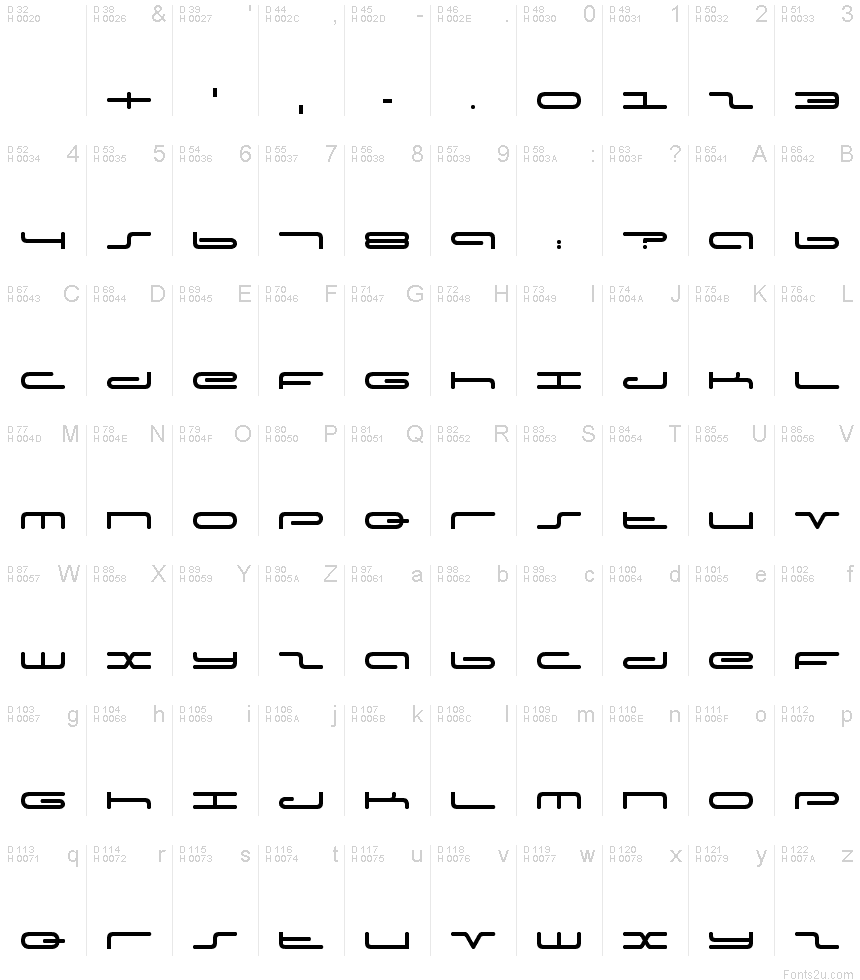
Captain Podd
Captain Podd font by Uddi Uddi Free Font is a free retro display typeface that looks like it was piped out of chrome tubing. Its rounded capsules, generous curves, and clean inline gaps create a smooth, space‑age rhythm that feels both toy-like and futuristic. The tight, continuous flow of shapes gives headlines a glossy, arcade-machine energy that jumps off the screen or page.
Using Captain Podd, you can brand a synthwave album, title a sci‑fi game, style techno party flyers, design retro-futurist posters, or build bold logotypes and YouTube thumbnails. This free font shines at large sizes where its tubular outlines can really glow. For supporting text, pair it with a simple geometric sans to keep the layout readable while Captain Podd handles the loud, nostalgic flair.